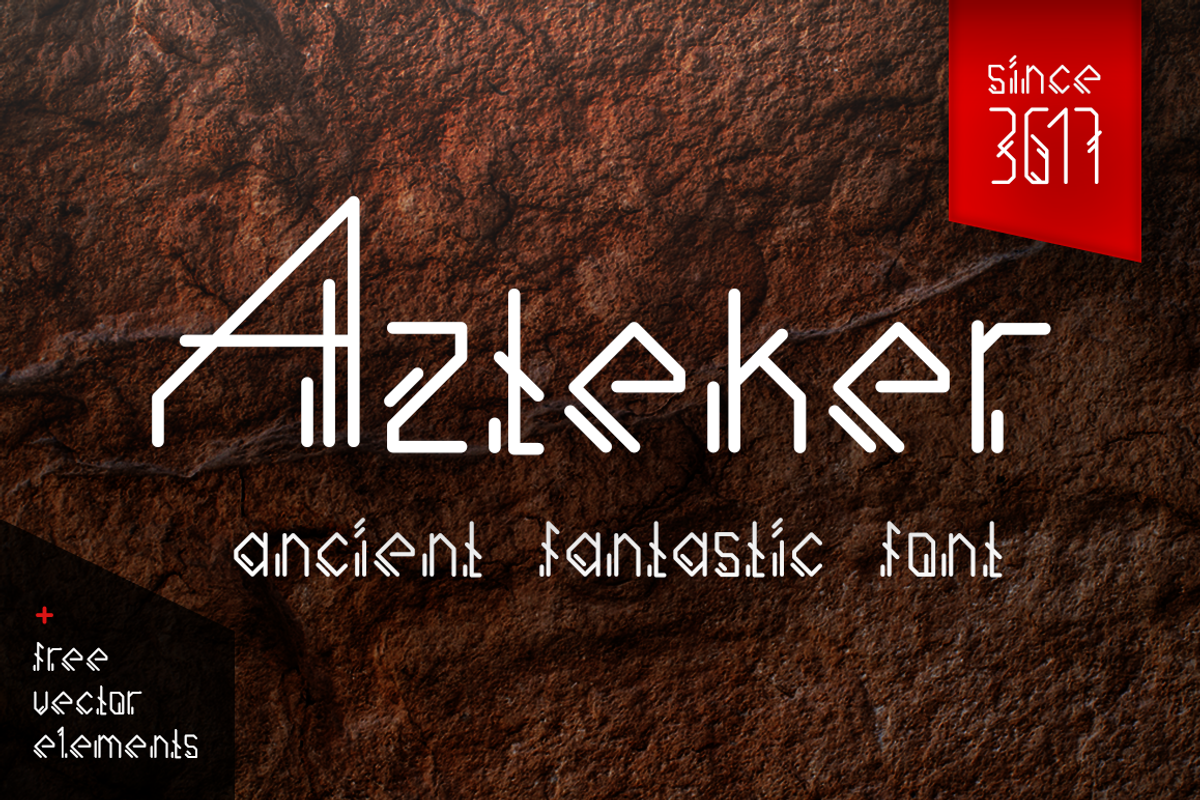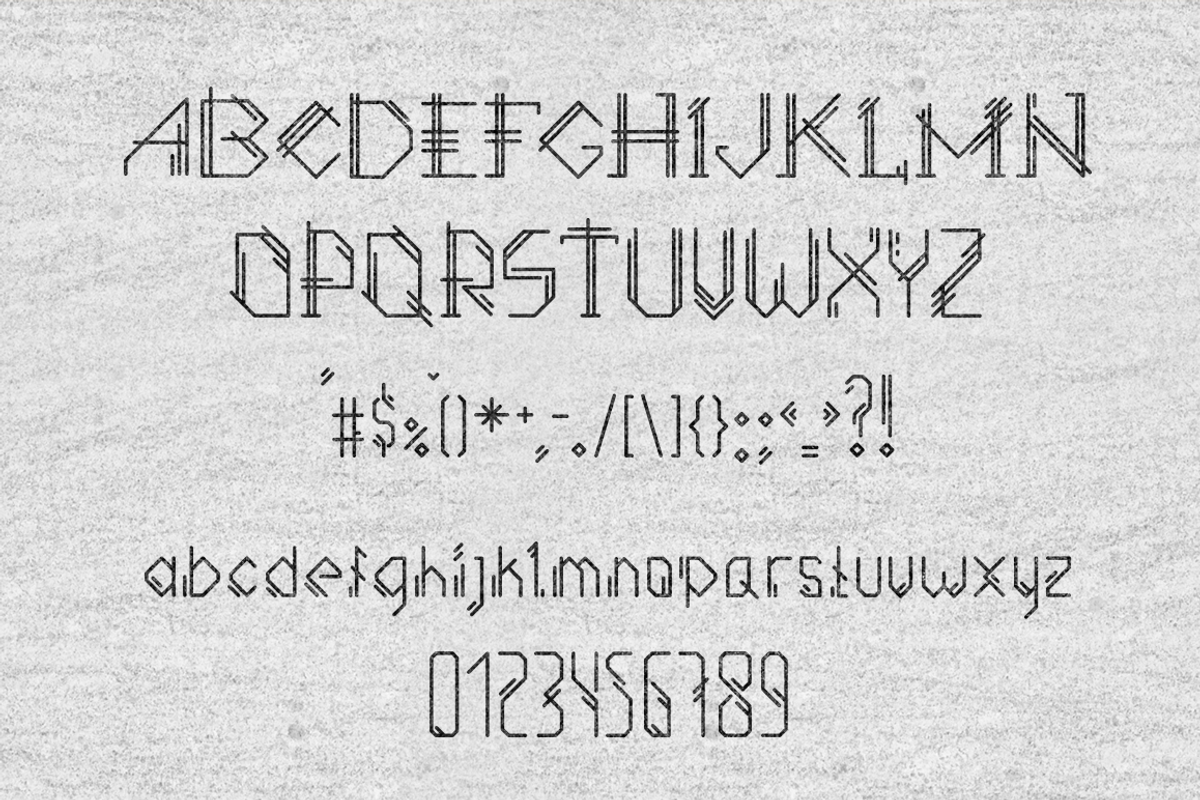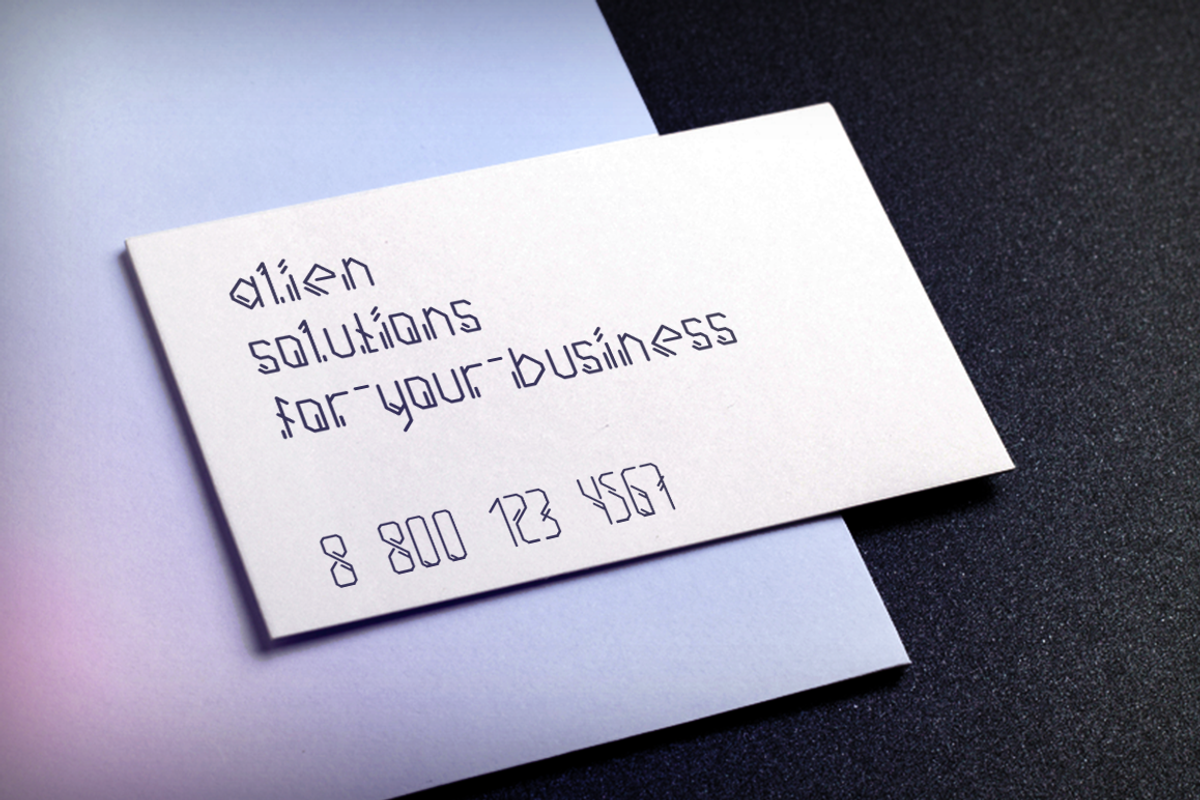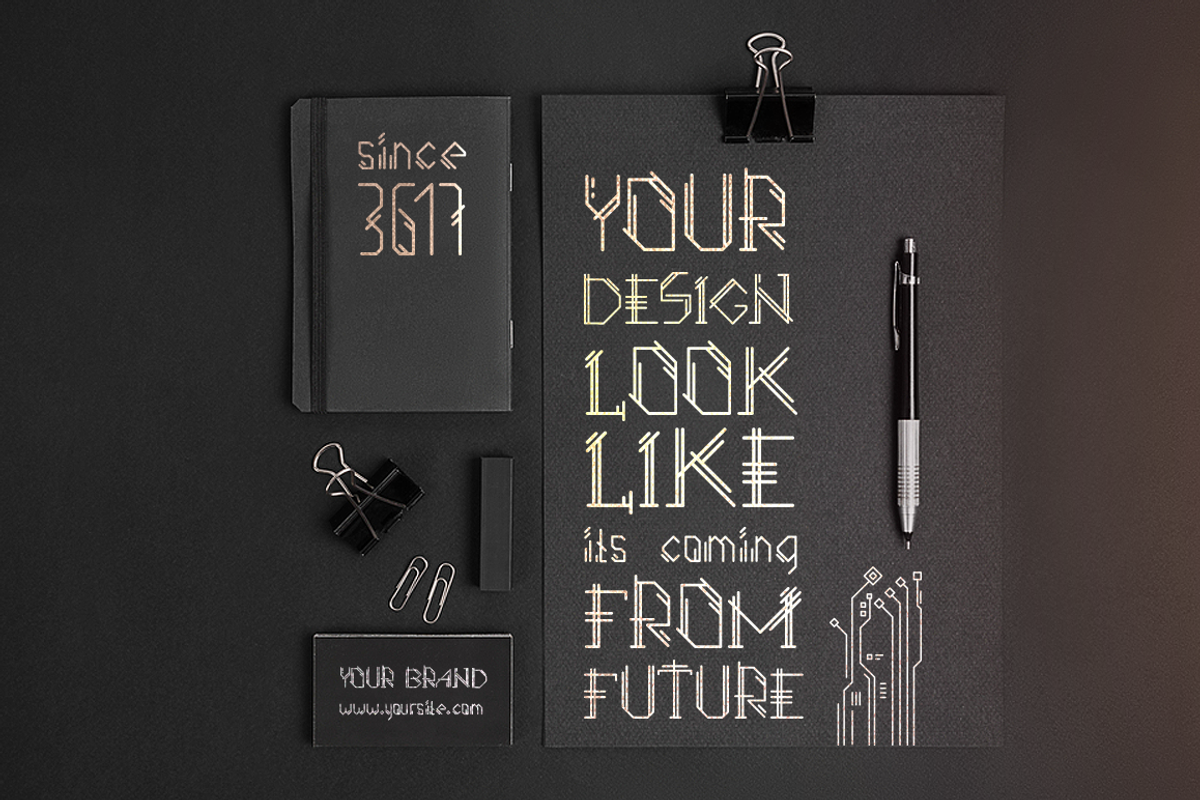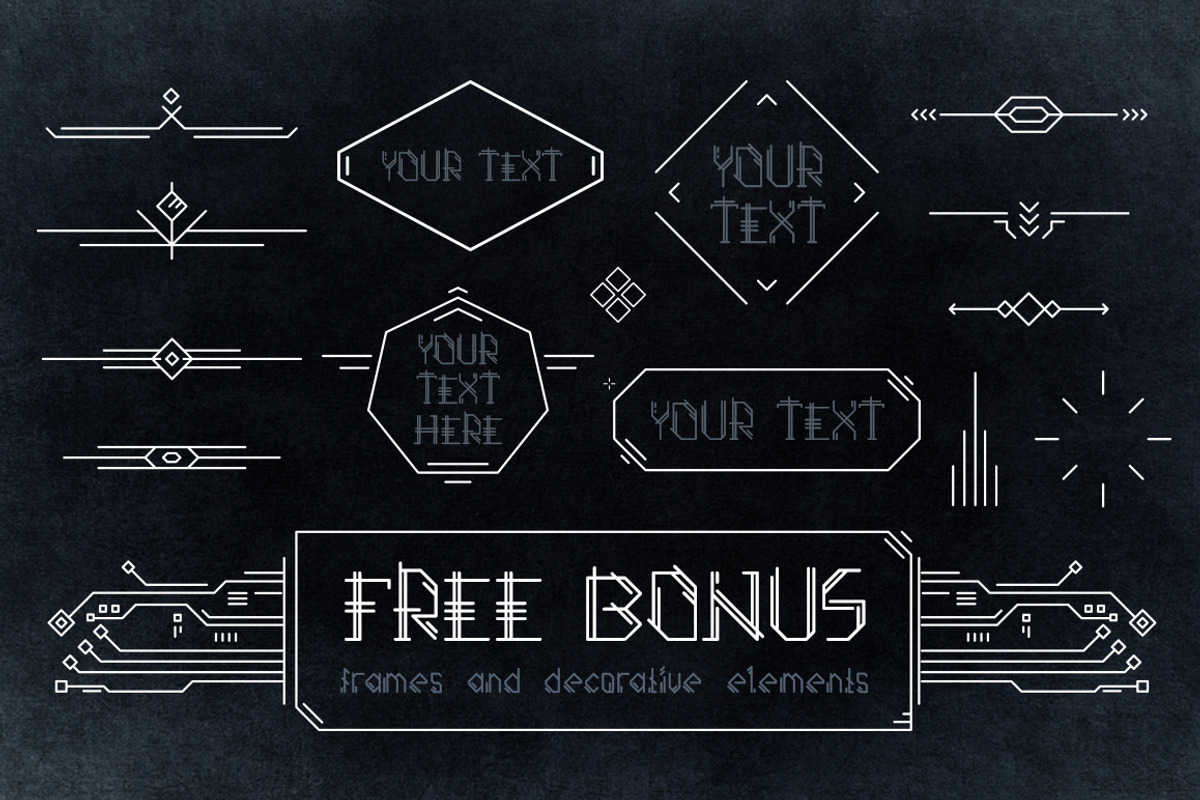
Azteker - ancient fantastic font
Azterer is a beautiful sans serif font designed with additional linear elements. Simple and stylish, the font works great to make logos, branding, apparel, titles. Font is supplemented with free bonus - line art elements and frameworks for more simple design creation.
numbers & punctuation